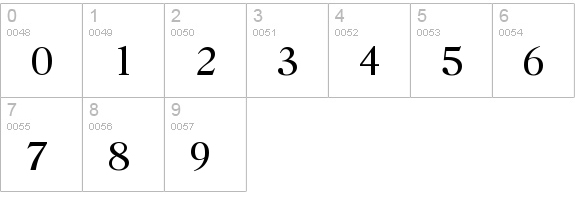
HorshamSerial-Light-Regular is a refined, elegant variant in the HorshamSerial typeface family \xE2\x80\x94 well suited to elegant body text, refined sub-headings, and luxury branding.
HorshamSerial-Light-Regular font is a sleek and modern typeface that exudes elegance and sophistication. Its clean lines and subtle curves make it perfect for a wide range of design projects, from branding to editorial design. The light weight of this font adds a touch of delicacy and refinement to any text. Best of all, HorshamSerial-Light-Regular font is available for free download at FontsMarket.com. Take advantage of this amazing offer and add this stunning font to your collection today! With its timeless appeal and versatility, HorshamSerial-Light-Regular font is sure to elevate your designs to the next level.